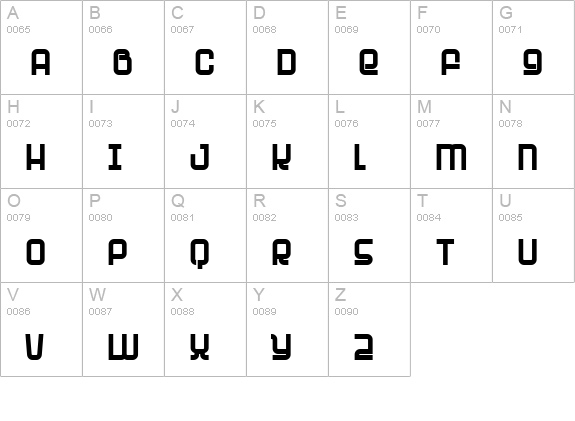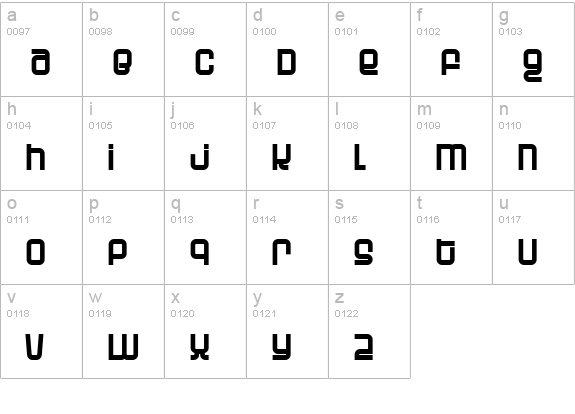
Planet Font Details
Introducing Planet font, a stunning typeface that will transport your designs to new dimensions! With its captivating curves and bold letterforms, Planet font is the perfect choice for adding a touch of futuristic elegance to any project. But what makes Planet font truly out of this world is its availability for free! That's right, you can download this exceptional font at absolutely no cost from FontsMarket.com. Whether you're a professional designer or a casual enthusiast, the freedom to access this remarkable font without any expense is a game-changer. Planet font combines modern aesthetics with a timeless appeal, making it versatile for a wide range of design applications. Its sleek and clean lines lend a sophisticated edge to logos, headlines, posters, and more. With an extensive character set and multiple weights, you'll have the freedom to unleash your creativity and bring your designs to life. As you explore the vast possibilities of Planet font, you'll discover its ability to effortlessly harmonize with various design styles. From sleek and minimalist to bold and expressive, this font adapts to your vision flawlessly. Its legibility remains uncompromised, ensuring that your message is conveyed with clarity and impact. Don't miss out on this extraordinary opportunity to elevate your design projects with Planet font. Download it for free today at FontsMarket.com and experience the freedom to innovate and create without limitations. With Planet font by your side, the sky's the limit for your design endeavors!